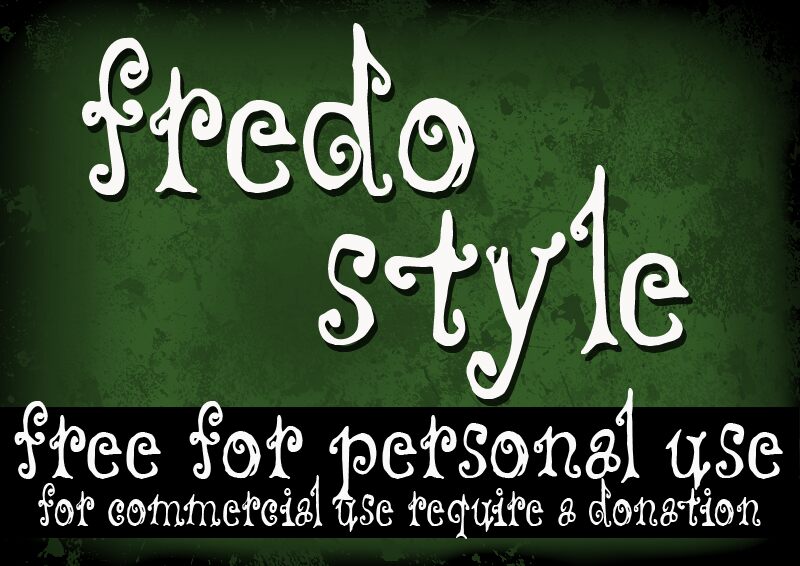
CF Fredo Style from CloutierFontes is a free curly display font with dramatic loops, soft bulges, and springy, changing stroke widths. Its tall pointed hooks, rounded bodies, and inward spirals give the letters a playful storybook silhouette without losing their individual shapes.
Children's book covers are its strongest setting, since the curled details can echo vines, waves, or fanciful creatures in the artwork. The same lively forms suit sweet-shop packaging, puppet-theater posters, and family event graphics. It is especially convincing as the title face for cheerful, richly illustrated children's stories.
CF Fredo Style Regular is a font by CloutierFontes, designed by Steve Cloutier in 2013.